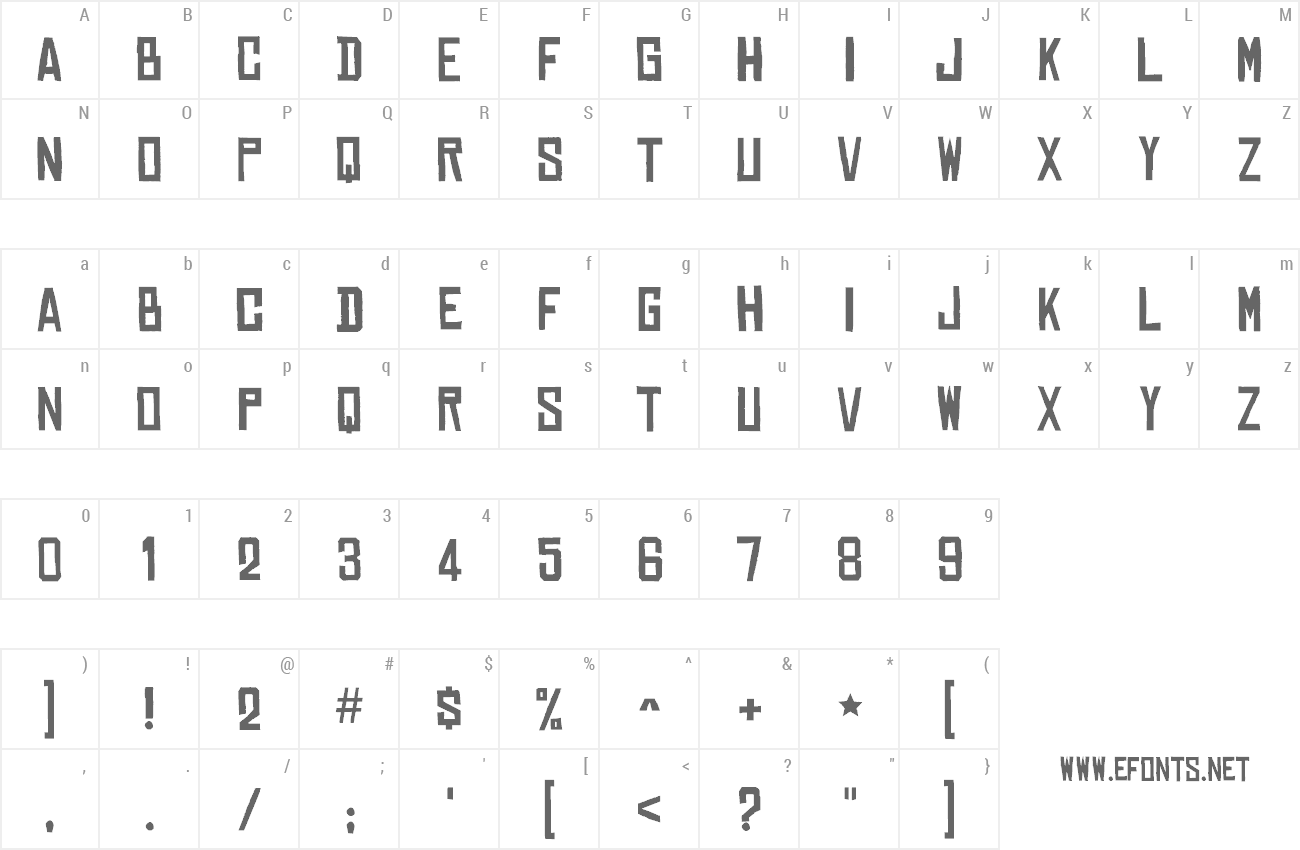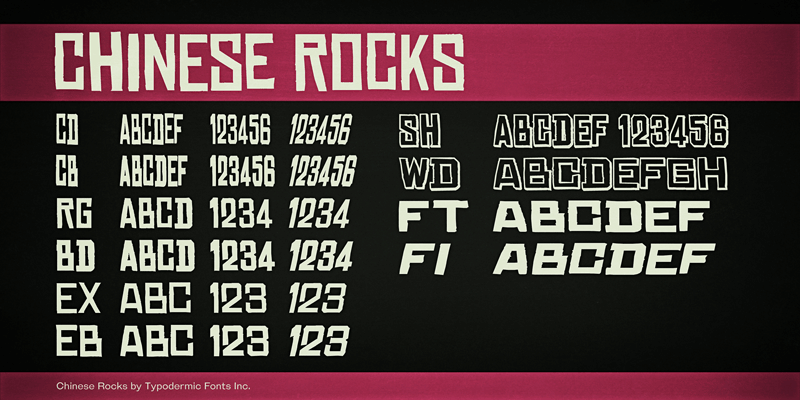
Chinese Rocks, the box-knife, imported merchandise font has always had alternate letters in the upper and lowercase positions. If you were typing the word BUTTER and you wanted to make sure both T’s were different, you might type BUTtER. Now there’s an OpenType feature which automatically alters the case as you type in OpenType savvy applications. NoW WoRdS wIlL AuToMaTiCaLlY AlTeRnAtE ThEiR CaSe FoR A MoRe rAnDoM EfFeCt. This only works with A-Z letters. If you don’t want this effect, turn off the “ligatures” feature in your OpenType savvy application. This font includes a license that allows free commercial use: sometimes referred to as a desktop license. This allows you to install the font on a computer and use it to create posters, web graphics, game graphics, t-shirts, videos, signs, logos and more. Read the license agreement for details. If you'd like to embed this font in an app, ebook, on the web or anything that's not covered by the desktop license agreement, visit the link below. You'll find distributors who offer different types of licenses or you can contact me for help. http://typodermicfonts.com/chinese-rocks-minor-update/ This free font is part of a larger font family. Check out the rest of the family through the link above. |